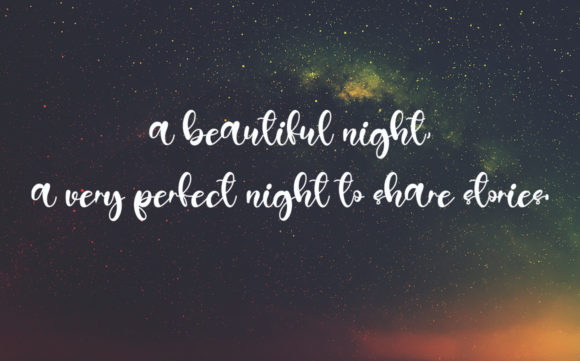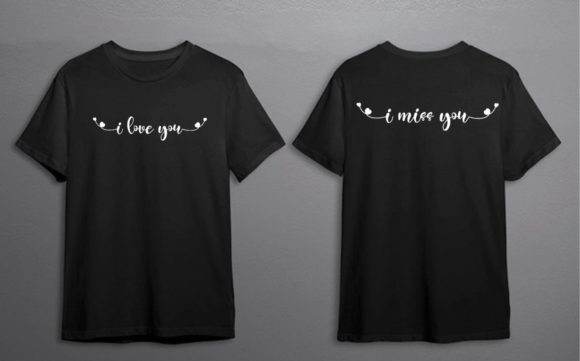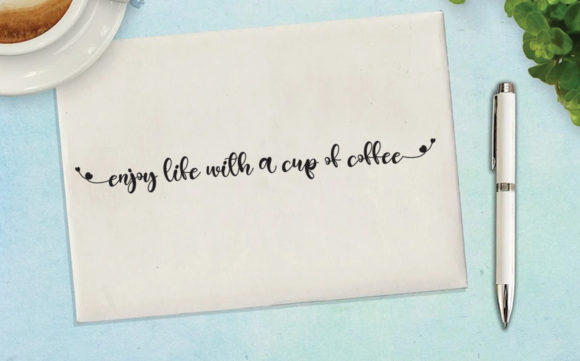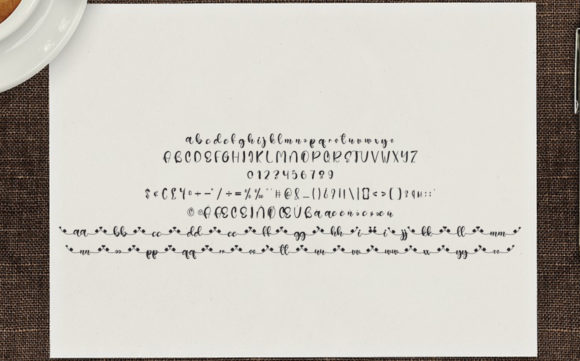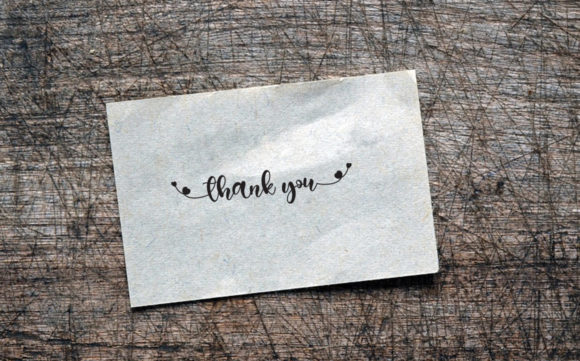
Adding a Touch of Luxury to Your Designs
Have you ever been working on a design project, pouring your heart and soul into it, only to feel like something is missing? You want to add a spark of romance and elegance, but you’re not sure where to start. This is where the Angel Night Font comes in – a stunning calligraphy typeface that will transport your designs to a world of luxury and sophistication.
With its beautiful, flowing characters that dance along the baseline, the Angel Night Font is the perfect addition to any design project. Whether you’re creating a wedding invitation, a luxury brand logo, or a romantic Valentine’s Day card, this font will add a touch of magic to your work. And with its PUA encoding, you’ll have access to all the amazing glyphs and ligatures you need to create truly stunning designs.
Angel Night Font Key Features
- Font Style: A beautiful, elegant script font, ideal for creating a romantic and sophisticated atmosphere.
- Character Count: The font includes a vast character set, covering a wide range of languages, including Latin, Cyrillic, and Greek alphabets.
- Unique Characteristics: Features a unique blend of modern and vintage elements, making it perfect for creating a distinctive and memorable design.
Angel Night Font Review
Overall, I think the Angel Night Font has a lot of potential, but it’s not without its flaws.
- The unique, dreamy aesthetic of the font is a standout feature.
- It’s perfect for designers who want to add a touch of whimsy and romance to their projects.
- The font is highly legible, making it suitable for body text as well as headlines.
- The font’s irregular shape and ornate details can make it difficult to read at smaller font sizes.
- The lack of bold and italic styles can be a limitation for designers who want to add emphasis to certain text elements.
- The font’s overall design may not be suitable for corporate or formal projects.
Overall, I would say that the Angel Night Font is a great choice for designers who want to add a touch of elegance and romance to their projects. However, it may not be the best choice for designers who need a highly versatile or legible font.
Angel Night Font is perfect for:
- Christmas and holiday-themed designs
- Magazine and book covers
Remember to pair the font with a bold or cursive font to create a striking contrast.
Angel Night Font is commonly used for:
- Typography-based designs
- Invitations and greeting cards
- Brand logos and identities
Alternatives to Angel Night Font
Bebas Neue is a modern sans-serif font with a unique aesthetic that can evoke a sense of elegance and sophistication. It is ideal for use in luxury brands, high-end fashion, and upscale designs where a touch of sophistication is needed. Bebas Neue has a more geometric feel compared to Angel Night Font, which has a more rounded and delicate appearance.
Lato is a clean and modern sans-serif font that works well for a variety of applications, from body text to headlines. It has a friendly and approachable feel that can be used in a wide range of designs, from corporate to creative projects. Compared to Angel Night Font, Lato has a more straightforward and minimalist design, lacking the ornate details of Angel Night Font.
Montserrat is a sans-serif font that originated in Argentina and is known for its urban, gritty feel. It is ideal for use in designs that require a strong, industrial look, such as technology, sports, or streetwear brands. Montserrat has a more aggressive and edgy feel compared to Angel Night Font, which has a softer and more delicate appearance.
Playfair Display is an elegant and luxurious serif font that is perfect for use in high-end designs, such as luxury brands, weddings, and special occasions. It has a classic and sophisticated feel that can add a touch of sophistication to any design. Compared to Angel Night Font, Playfair Display has a more formal and traditional design, lacking the whimsical and playful feel of Angel Night Font.
Q: What is the recommended font size and line height for optimal readability with the Angel Night Font?
For optimal readability, we recommend using a font size between 12-24 points and a line height of at least 1.2-1.5 times the font size. This will ensure that the text is clear and easy to read, even in smaller font sizes.